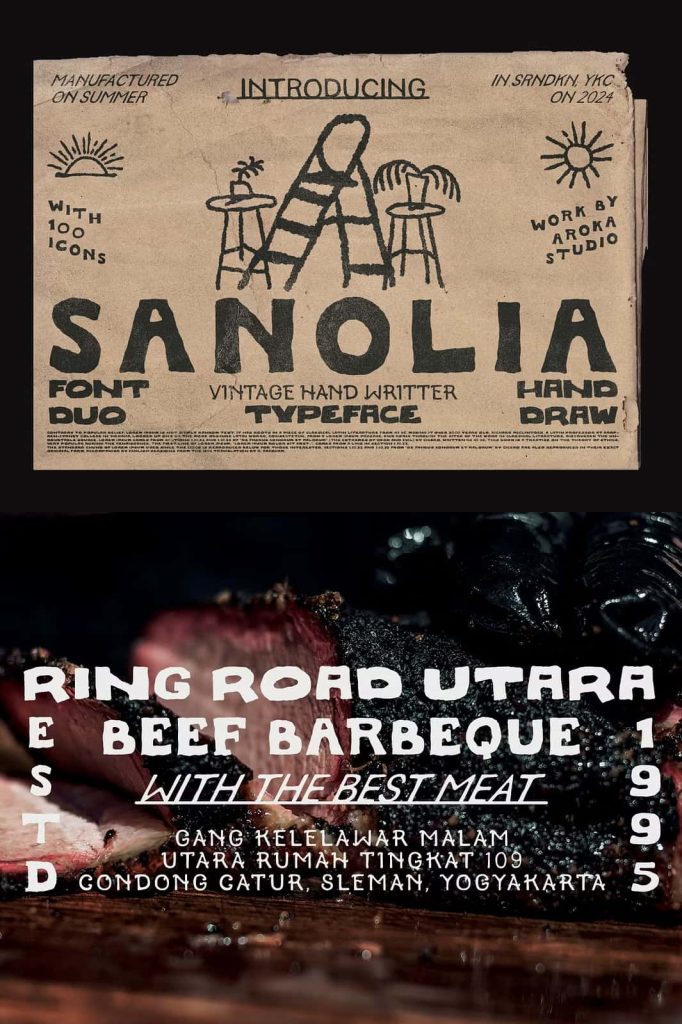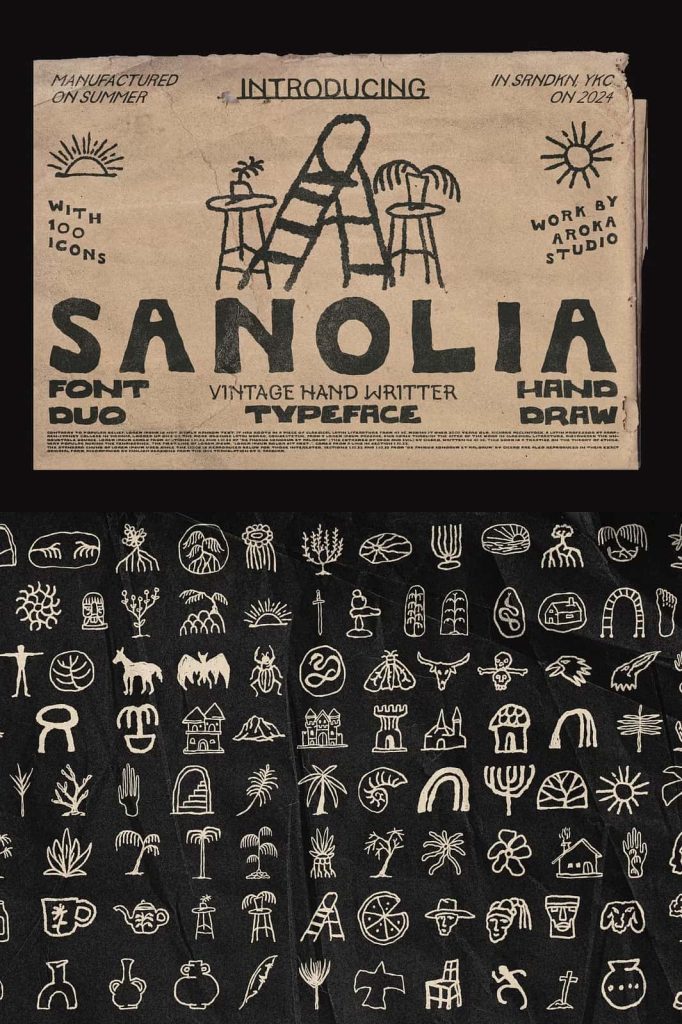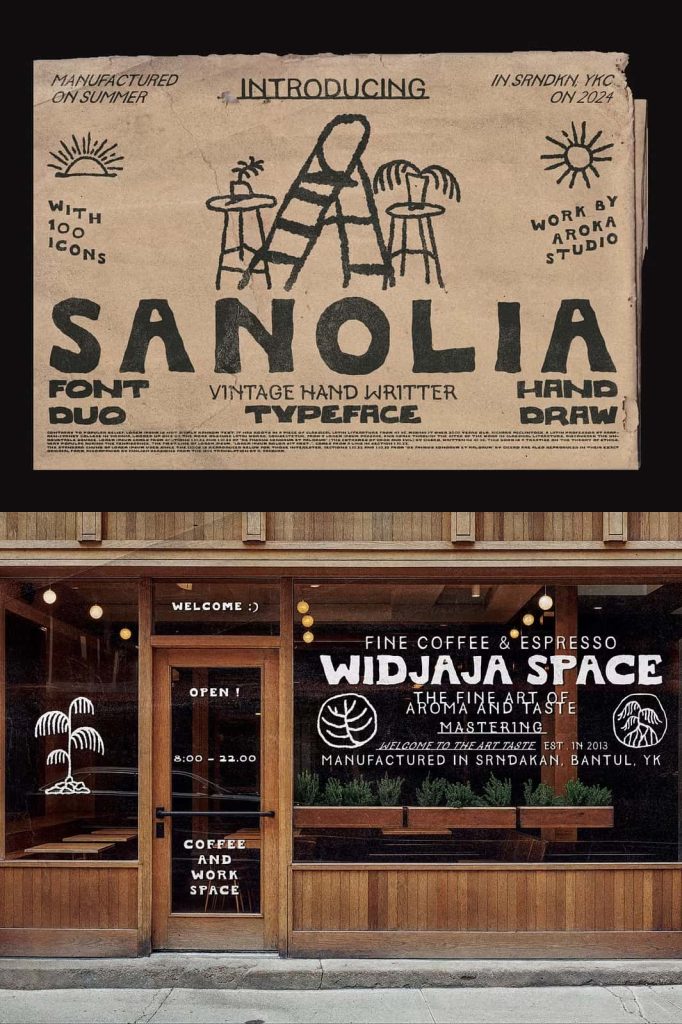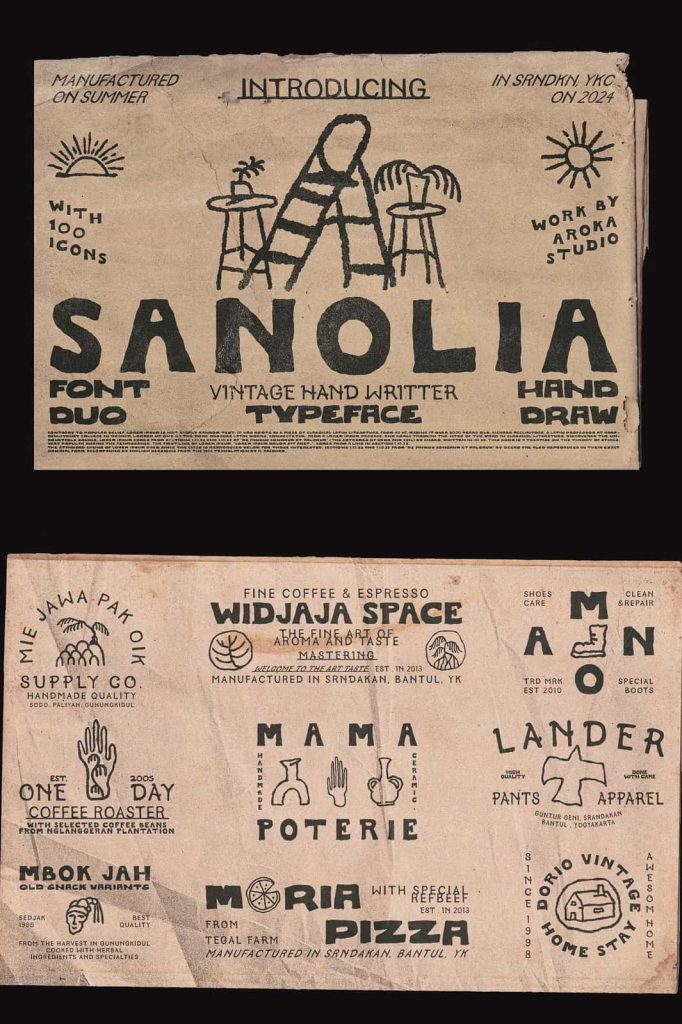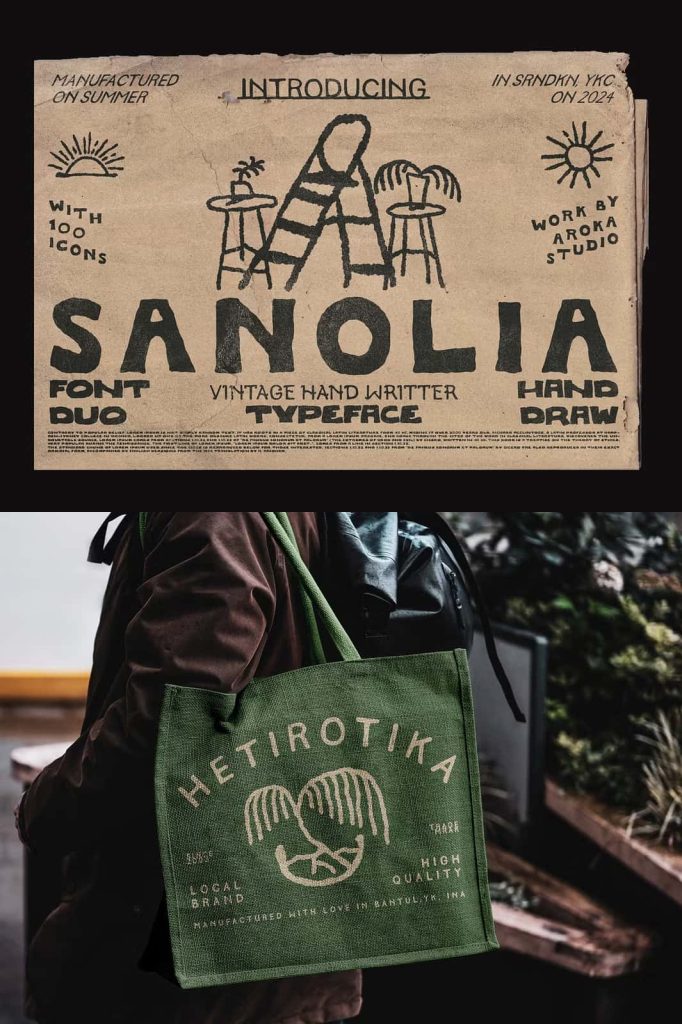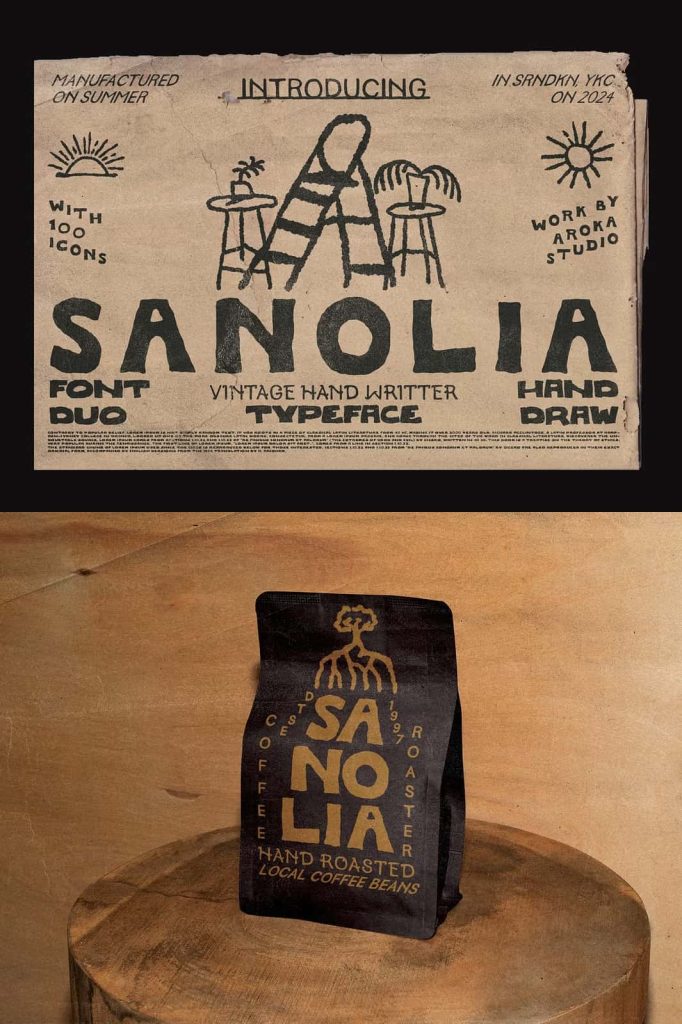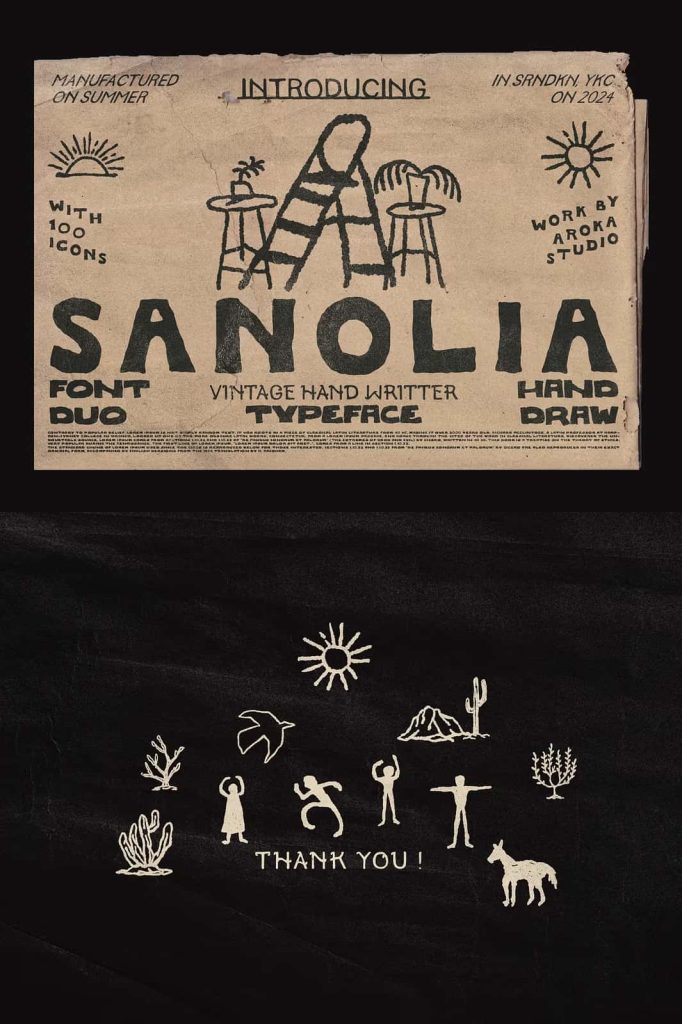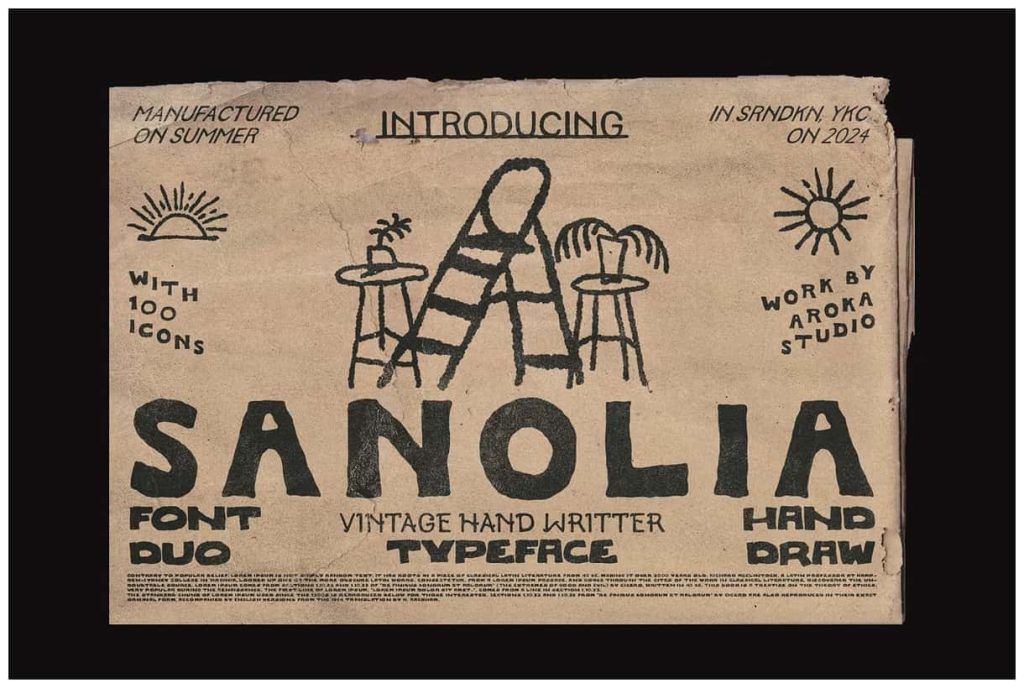
SANOLIA – HAND DRAW TYPEFACEleastedJune 1, 2025Fonts font inspired by mural on the wall and also inspired by the picture of a child and the picture in the cave Download